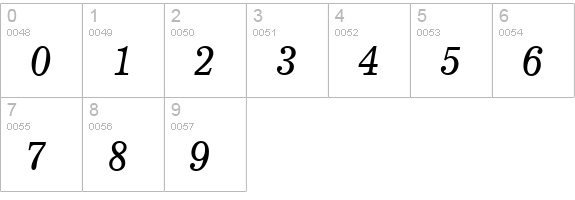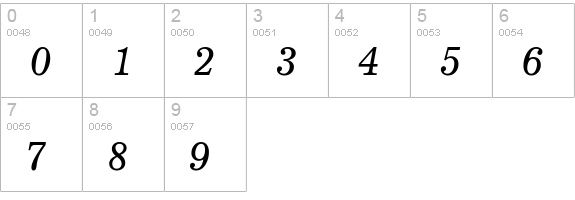
C795-Roman-Italic Font Details
C795-Roman-Italic is a distinctive, italic variant in the C795 typeface family \xE2\x80\x94 well suited to design and typography projects.
C795-Roman-Italic is a classic and elegant font that exudes sophistication and timelessness. With its graceful curves and balanced proportions, this typeface is perfect for adding a touch of refinement to any project. Whether used for formal invitations, branding materials, or editorial designs, C795-Roman-Italic is sure to make a lasting impression. What makes this font even more appealing is that it is available for free download at FontsMarket.com. This means that you can easily access and use C795-Roman-Italic in your creative endeavors without any cost. Don't miss out on the opportunity to elevate your designs with this beautiful and versatile typeface. Download C795-Roman-Italic today and bring a touch of sophistication to your projects.